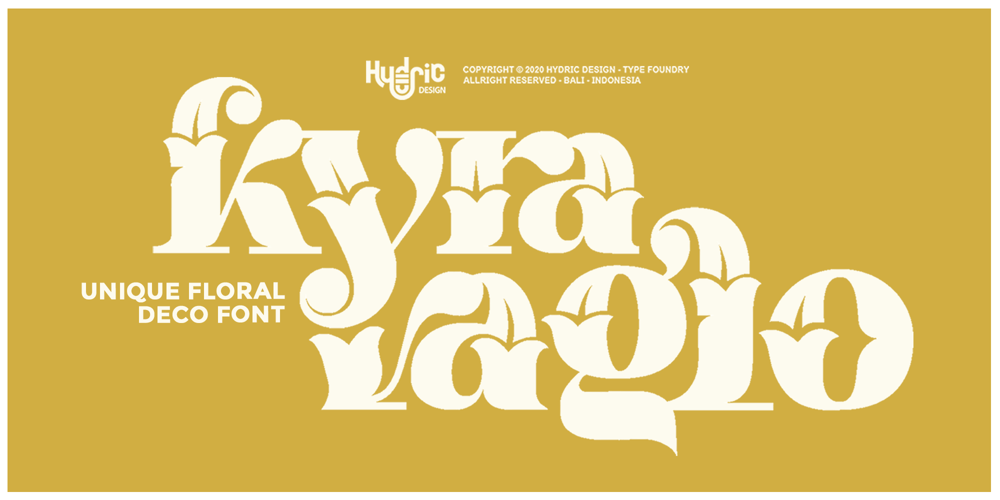
Kyra Vaglo Font Family was designed by Hery Setyadarmawan and published by Hydric Design. Kyra Vaglo contains 1 styles and family package options. Kyra Vaglo is a Unique font with floral ornament, inspired from Asian Skunk Cabbage,this beautiful font also perfect for your project, It can be used for various purposes such as logos, wedding invitations, headings, t-shirts, letterhead, signage, labels, news, posters, badges and so much more.can be easily accessed in full through any program by using your Operating System’s utilities (Character Map for Windows and Font Book for Mac.), as well as Illustrator, Photoshop CC, Cricut Design Space and Silhouette Studio and several other applications.Multilingual SupportTo access all OpenType Stylistic alternates, you need a program thatsupports OpenType features such as Adobe Illustrator, Adobe Photoshop,CorelDraw and Microsoft word.